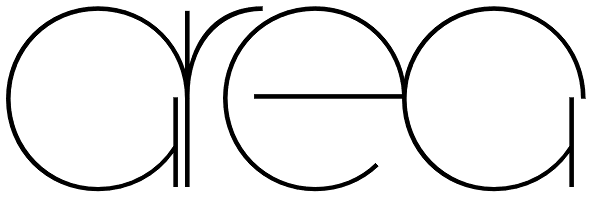
Area
Area hearkens back to the disco era, reminiscent of nightclub and record advertising. The rounded simple forms are updated with the implementation of negative kerning, which gives the typeface its unique look and modern feel. It is enhanced by the...